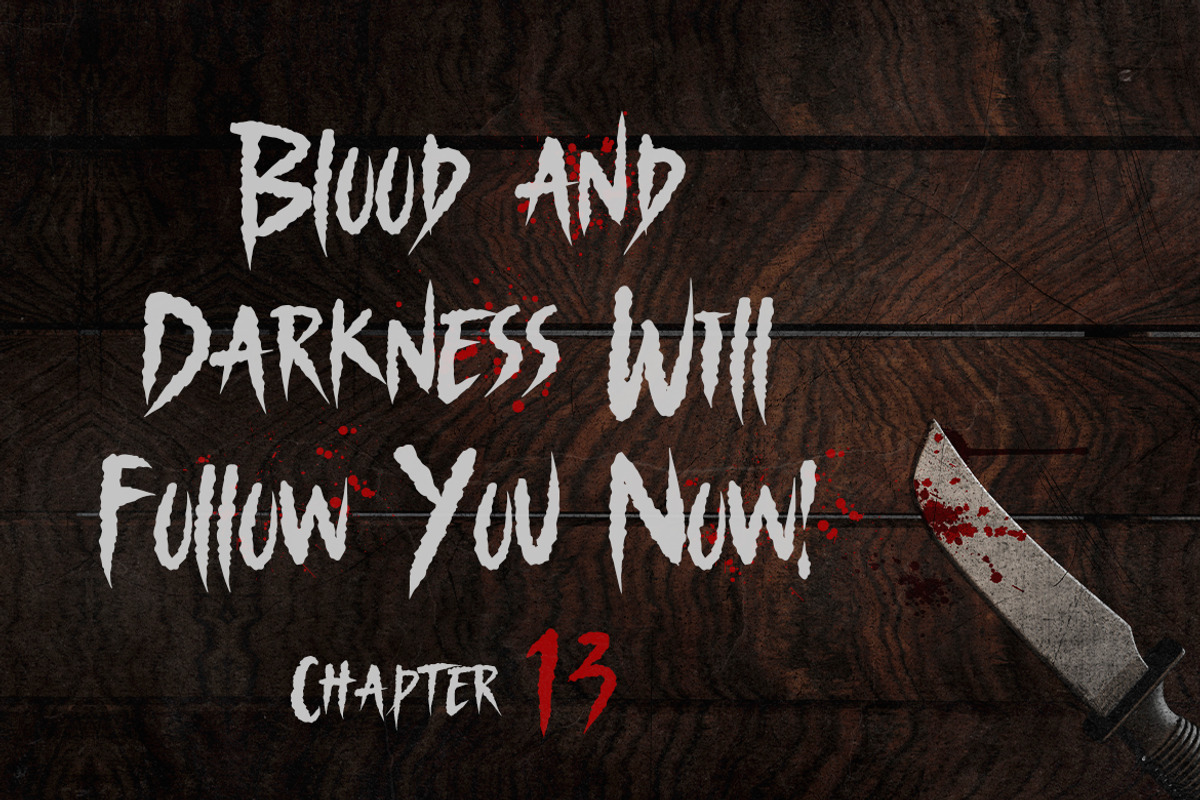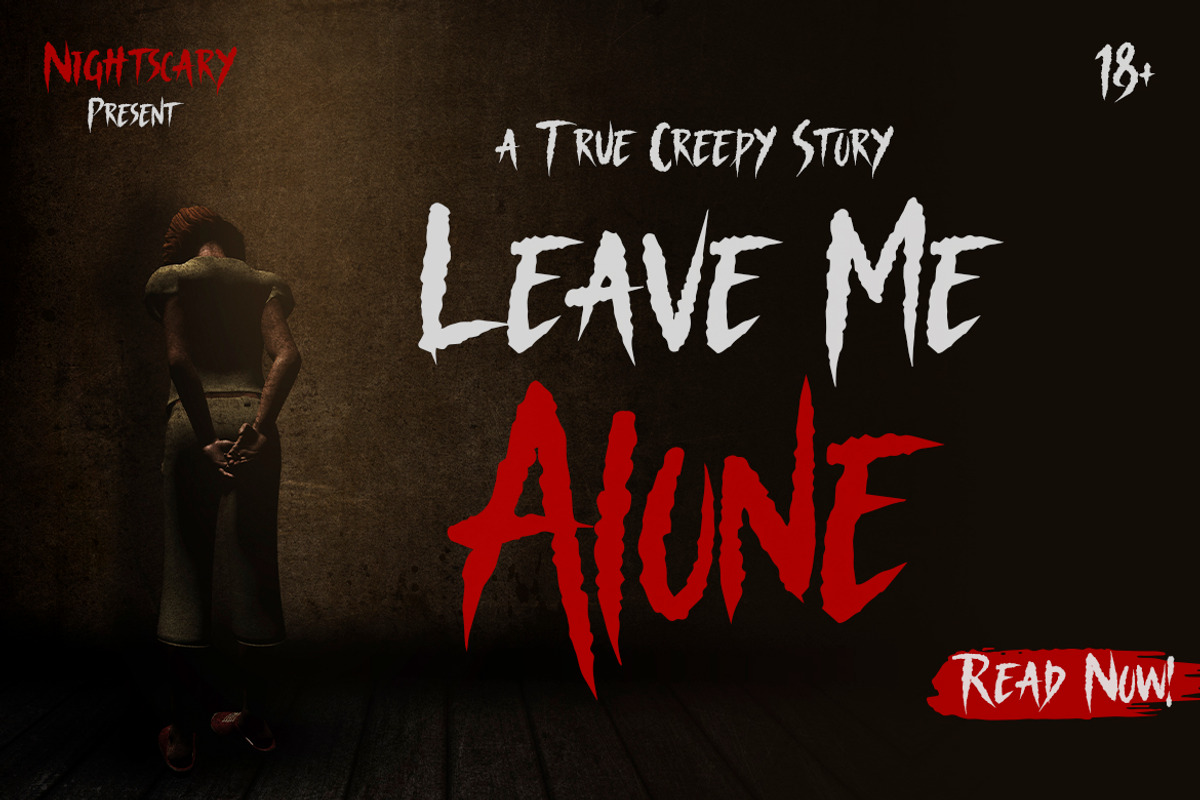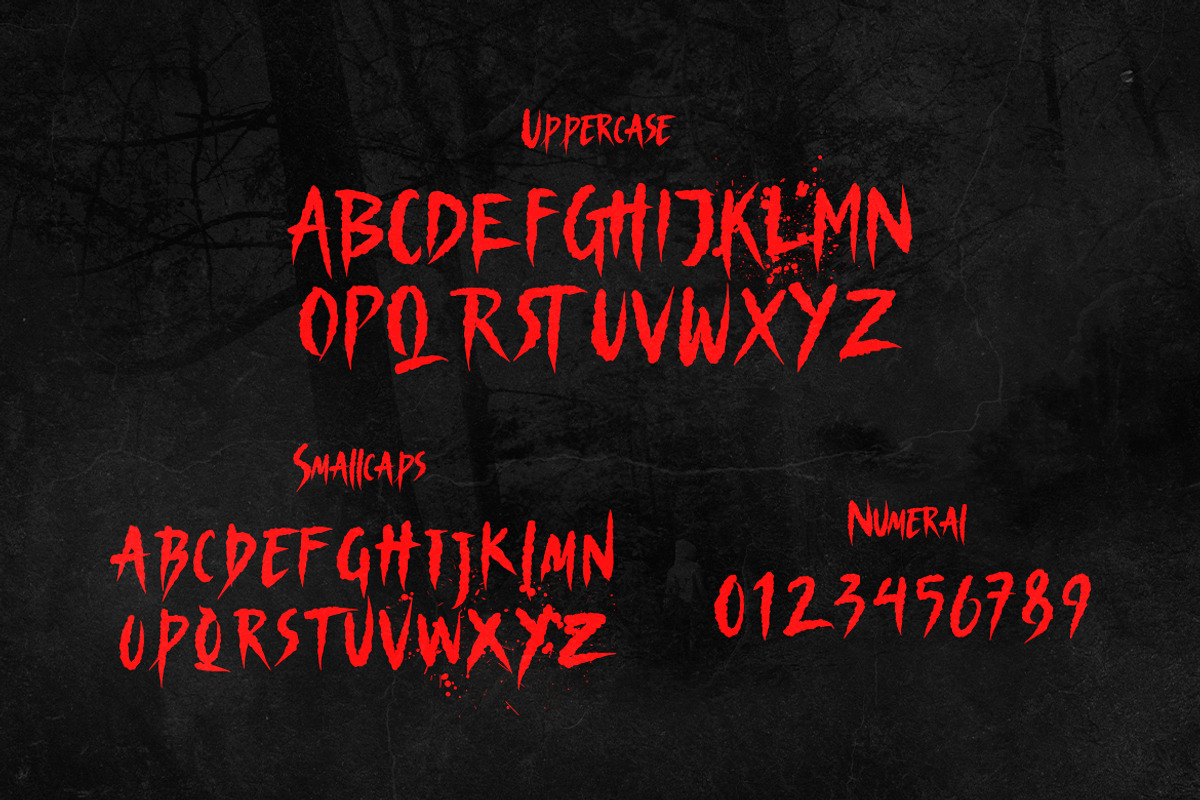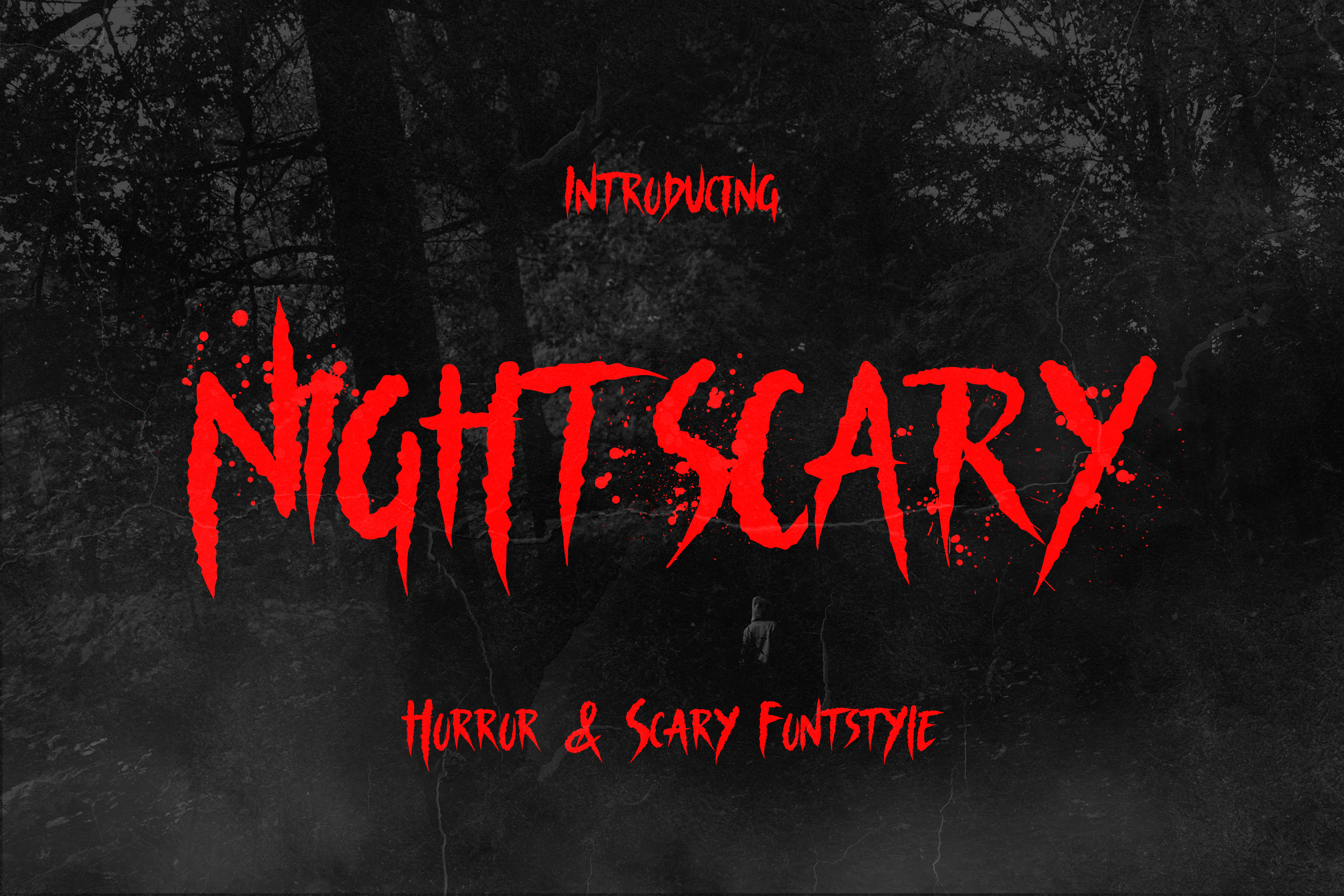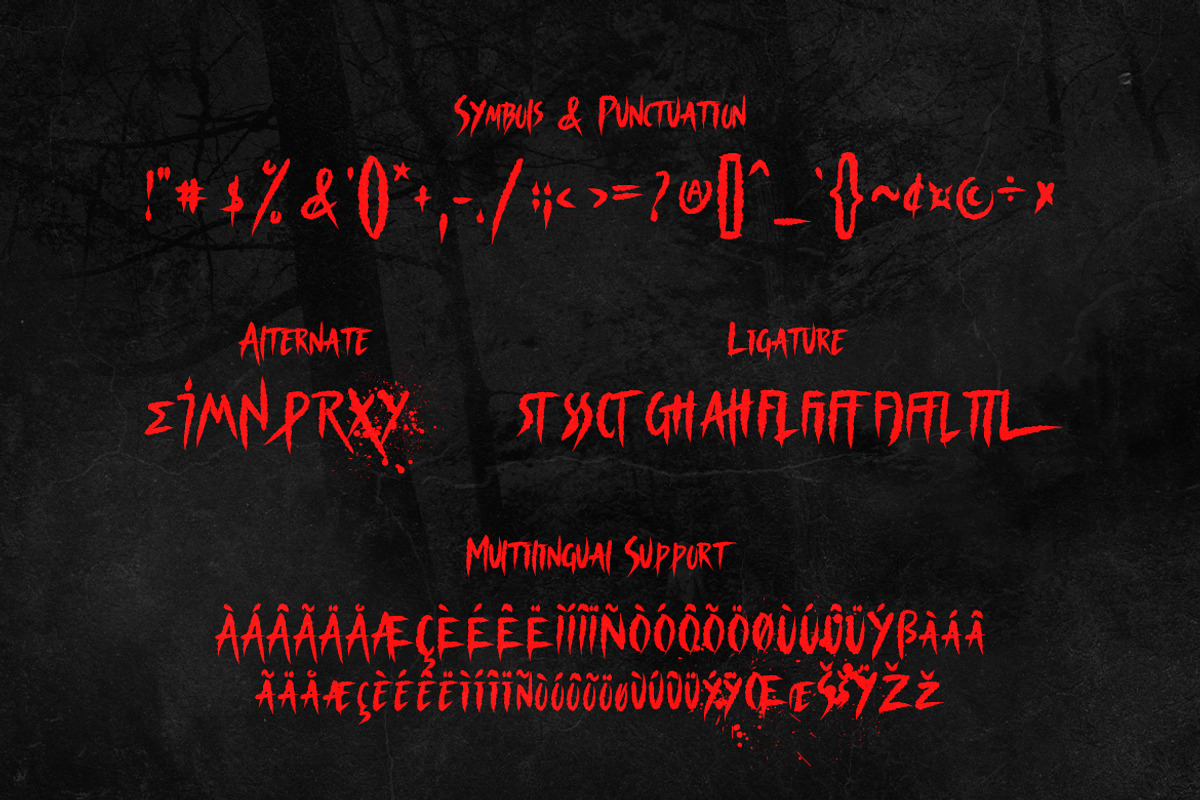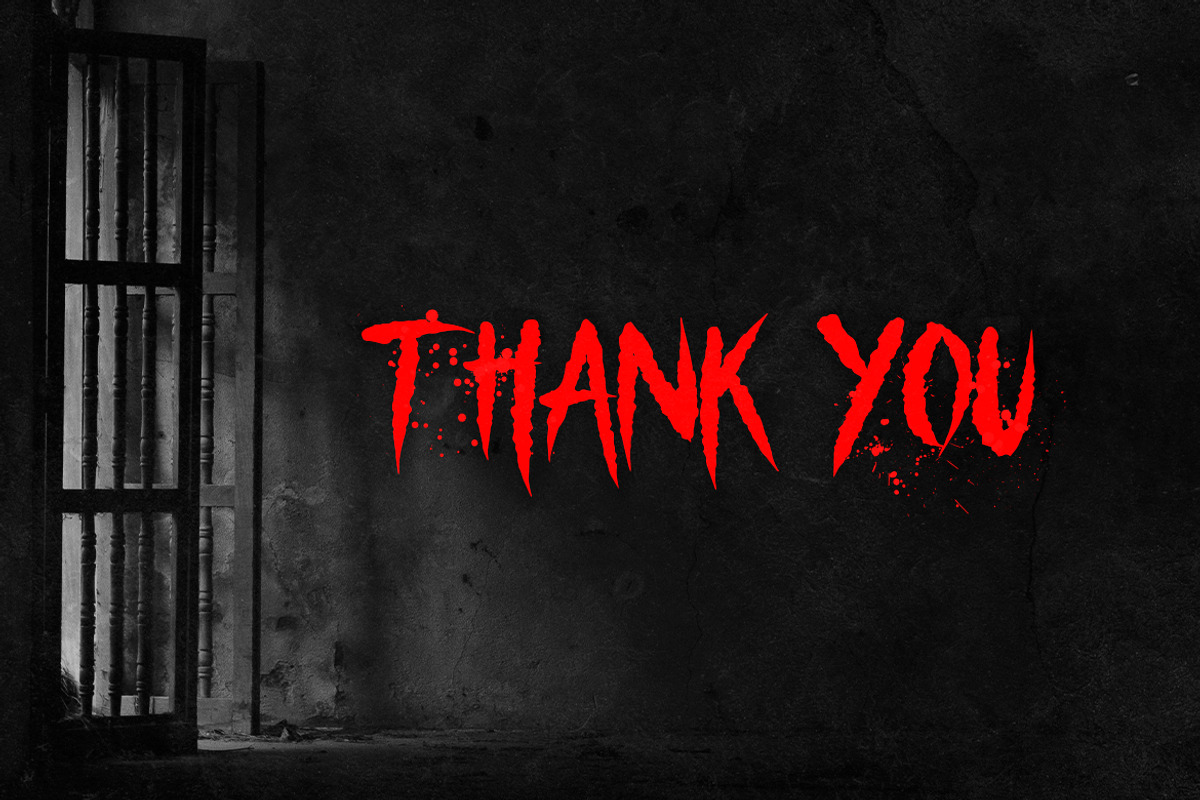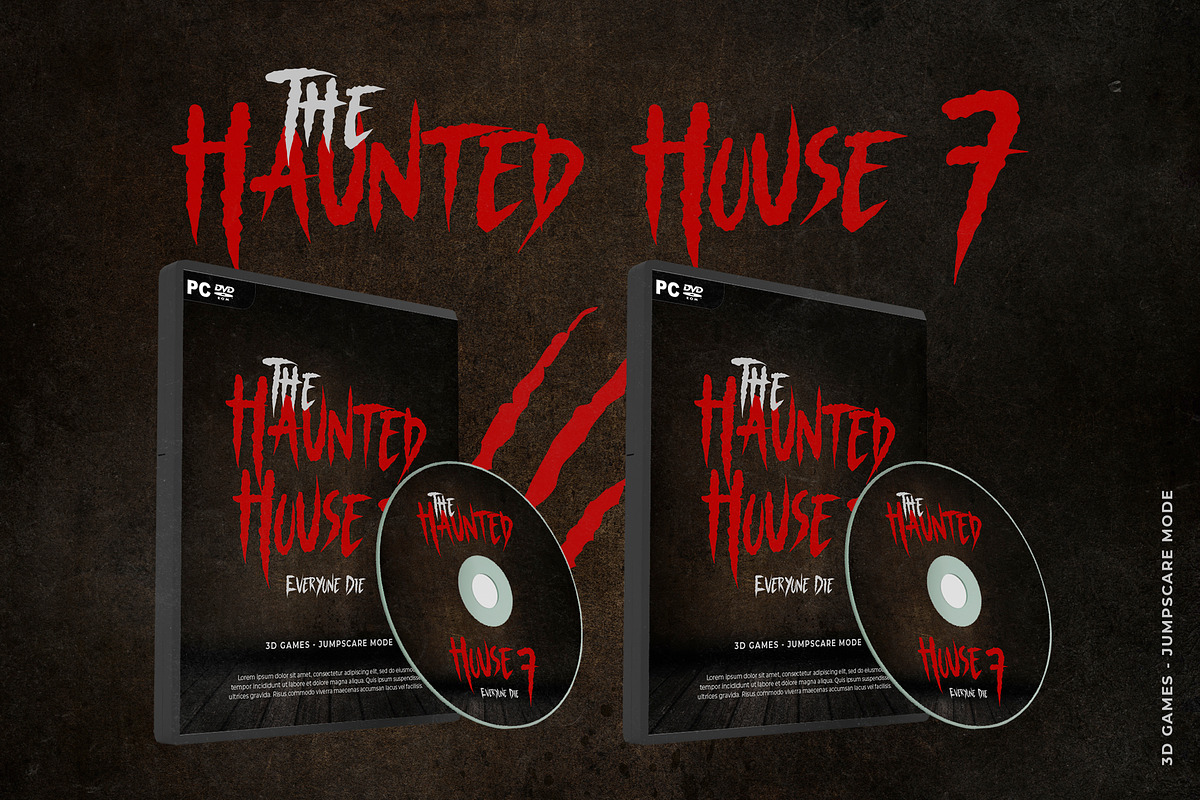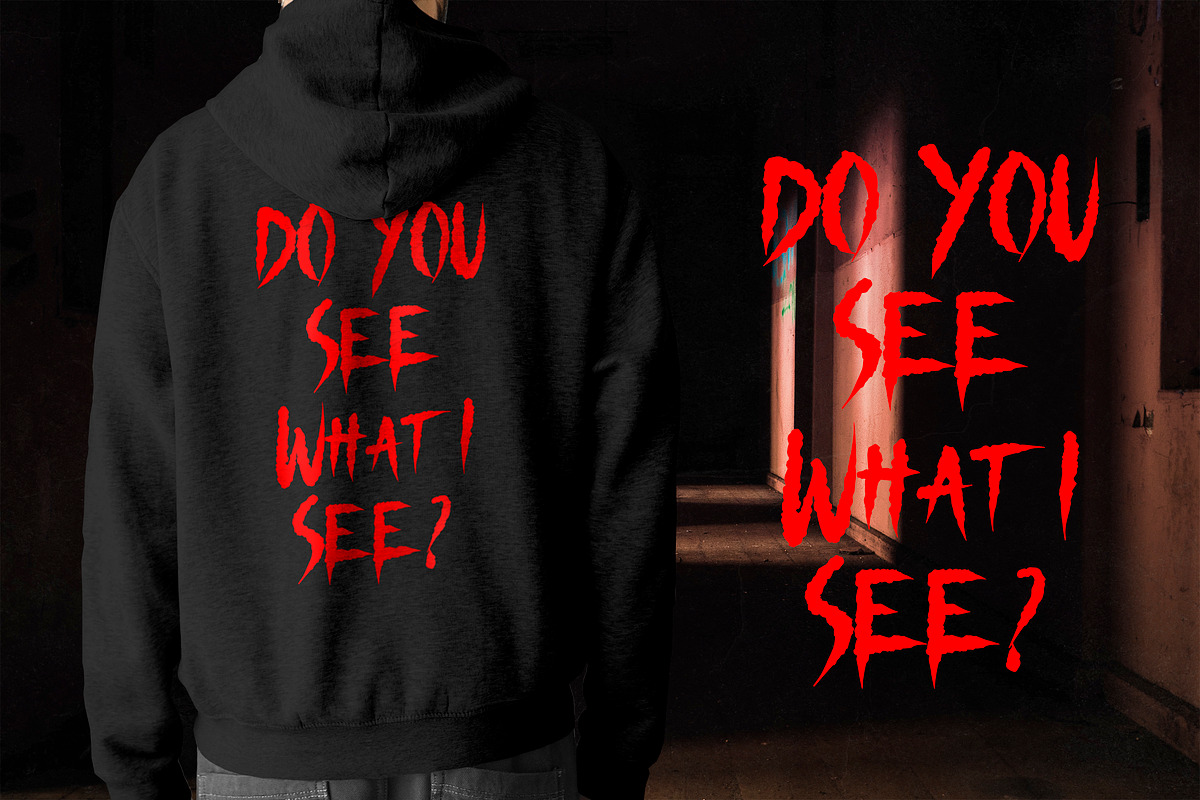
Nightscary - Horror & Scary Font
Nightscary is a violent, powerful and rough handwritten font with bold splatters. With the right design the Nightscary font has a scary look and feel which makes it a great Halloween or thriller themed font. If you’ve been looking for a thriller font, this Nightscary font is everything which you’ve been dreaming of and much more. It doesn’t matter if you’re creating Game Horror, T-Shirts or crafts which are meant to be scary – this font will provide any project with extra spook, fright and feels.
- Smallcaps
- Symbols & Punctuation
- Numeral